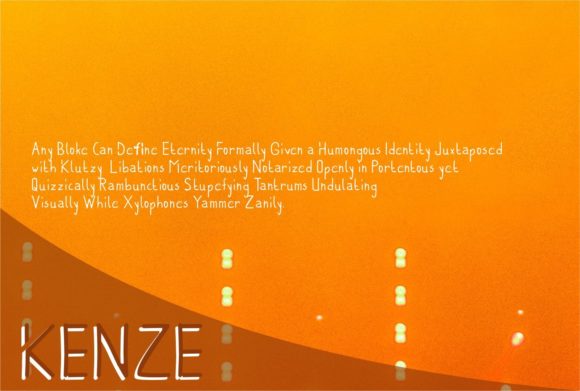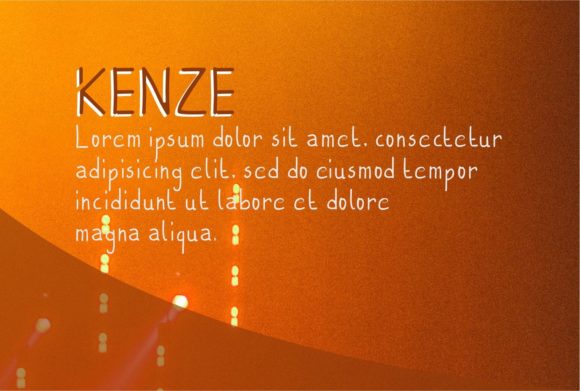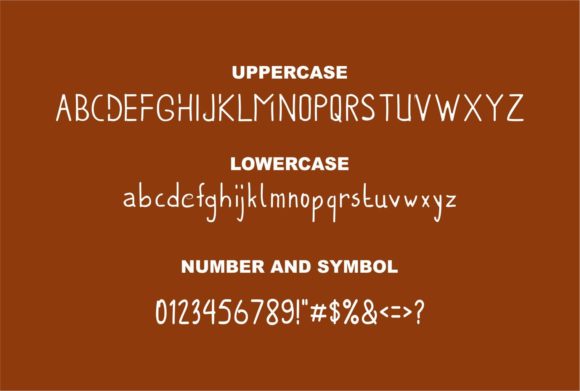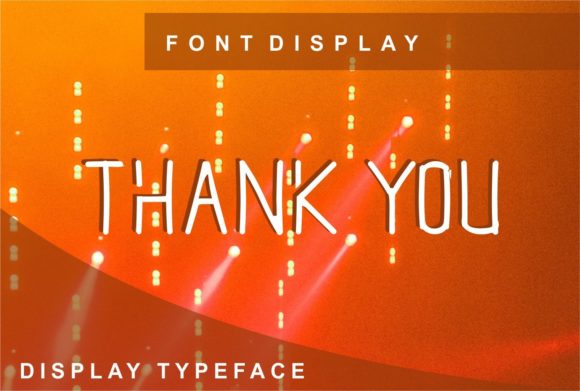
Introduction to Kenze Font
Remember that moment when you’re working on a creative project, and you’re stuck on finding the perfect font to match your vision? You’ve spent hours browsing through fonts, but none of them seem to fit the vibe you’re going for. That’s where Kenze Font comes in – a clean and adaptable display font that will elevate your designs to the next level.
Key Features of Kenze Font
- High quality, professional font perfect for creative projects, with a transparent background that allows for seamless integration with any design resource.
- Available in 3 different font sizes, ranging from 18pt to 72pt, making it suitable for a variety of design applications.
- Resolution: 300 DPI, ensuring crisp and clear text output in print and digital formats.
- Unique characteristics include a modern, minimalist design aesthetic and a wide range of typographic styles to suit various design needs.
- Kenze Font is ideal for use in logos, branding materials, and other design elements where a clean and sophisticated look is desired.
Honest Review: Kenze Font
What works well: ✨ The Kenze Font has a unique and stylish design that would be perfect for any project that requires a modern touch. The font is highly legible and comes in a range of weights and styles, making it versatile for various design applications. I also appreciate the fact that it’s available for free download, making it an excellent resource for designers on a budget.
Some limitations: ⚠️ While the Kenze Font is a great design resource, it’s not ideal for projects that require a transparent background. The font’s design can be quite busy, which may not be suitable for all design applications. Additionally, the font’s high quality may not be suitable for small-scale designs, as it may be too bold or overpowering.
- Unique and stylish design
- Highly legible
- Available in a range of weights and styles
- Not ideal for projects with transparent background
- May be too bold or overpowering for small-scale designs